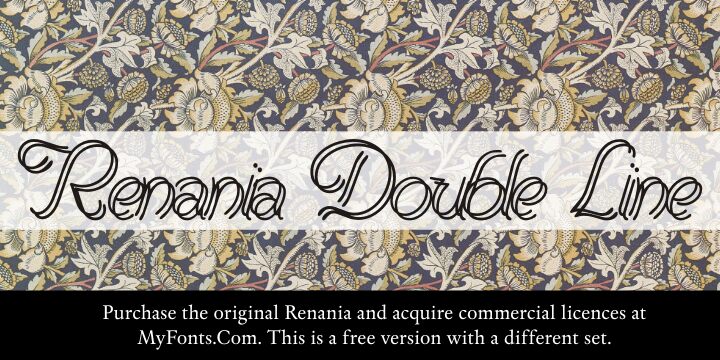
Renania Double Line by Paulo W is a free trash-style script with looping, doubled strokes and a deliberately unruly finish. Its letters stretch into extravagant curves, sharp hooks, and loose crossbars that often cut through neighboring forms. The effect is decorative but raw.
Designers working in underground music, tattoo culture, or alternative fashion will find its restless linework especially relevant. It suits album artwork, apparel, and event posters as an improvised hand-drawn emblem. The tangled contours also suit gothic romance and dark cabaret, turning ornate lettering into illustration.